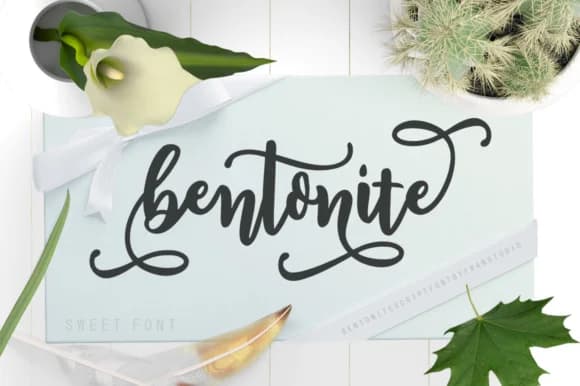
Bentonite Script by Franstudio is a contemporary calligraphy typeface with flowing letterforms and a dynamic baseline that moves naturally throughout your text.
This script font excels in applications demanding refined, upscale aesthetics. The smooth strokes and variable baseline movement give Bentonite particular strength for luxury wedding stationery suites, where its flowing character conveys timeless elegance and personal warmth. It's equally effective for personalized thank you cards and guest-list designs, as well as artisanal brand packaging for boutique and lifestyle products seeking an authentic, handcrafted feel. Event designers will find the font particularly valuable for decorative menu cards, program covers, and ceremonial invitations where handcrafted sophistication and meticulous attention to detail matter most. The letterforms maintain excellent legibility even while delivering genuine calligraphic charm, making it versatile enough for both display use and body-text applications where readability remains paramount.
The careful balance between flowing movement and readability ensures your designs maintain a polished, refined quality regardless of application or reproduction method. Bentonite Script brings a sense of personal touch and genuine sophistication to any creative project requiring an authentic, hand-lettered appearance without sacrificing professional impact. Whether you're creating special occasion stationery, brand collateral, or custom designs, this typeface delivers the handwritten elegance that discerning clients and audiences truly appreciate. Find Bentonite Script on Creative Fabrica to add its sophisticated calligraphic style to your creative toolkit.
Bentonite Script Font is a script font that shines as a display or heading face. Pair it with a clean sans-serif or serif font for body text β the contrast creates a clear hierarchy while the two styles stay balanced and easy to read.
Bentonite Script Font
by Franstudio